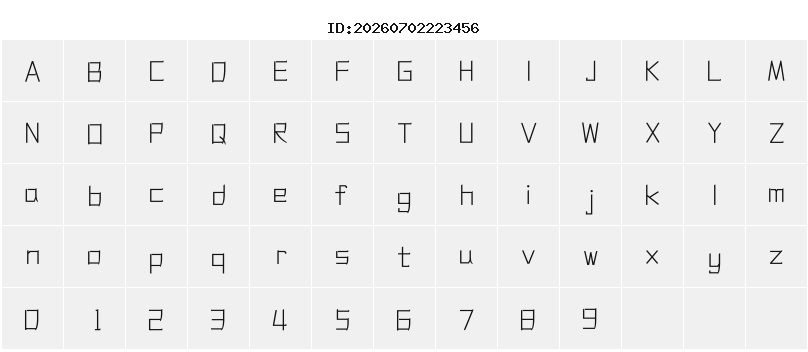
• Font Name: 296-上首松针体
• Font ID: 296-SS Song Zhen Ti:Version 6.00
• Full Font Name: 296-上首松针体
• Version: Version 6.00 November 30, 2023
• PostScript Name: 296-SSSongZhenTi
• Character Count: 7569
• Manufacturer: 上首造字
About 296-上首松针体.ttf
296-上首松针体.ttf is a modern, elegant sans-serif font designed for ultimate readability and visual harmony. Perfect for branding, headlines, web design, and print materials.